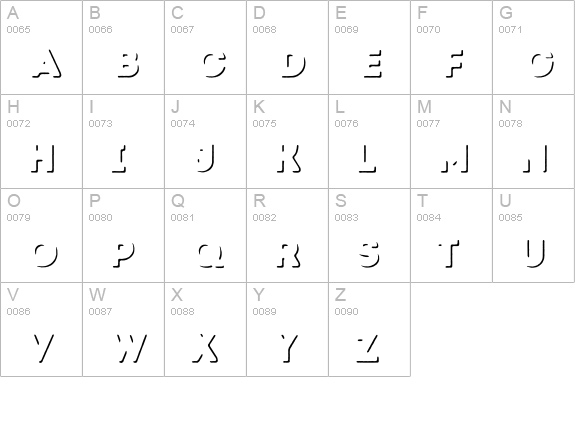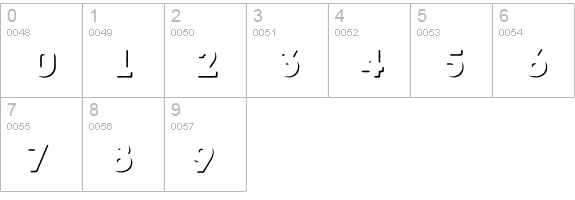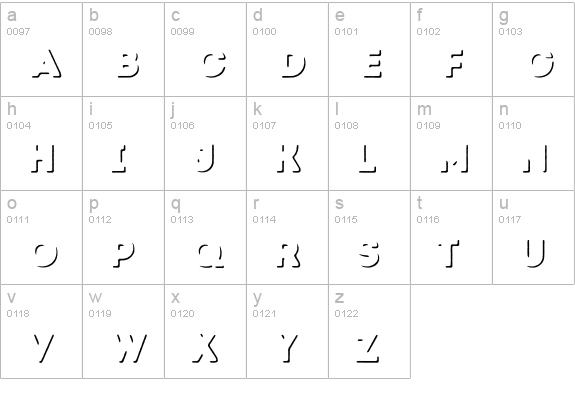
Intro Rust Shade Font Details
Intro Rust Shade is a stunning and unique display font that exudes a vintage and rustic charm. Its intricate shading and distressed appearance give it a weathered and aged look that adds character and depth to any design project. This font is perfect for creating eye-catching headlines, posters, logos, and more. What makes Intro Rust Shade even more appealing is that it is available for free download on FontsMarket.com. This means that you can easily access this beautiful font and incorporate it into your creative projects without any cost. Don't miss out on this fantastic opportunity to enhance your designs with the distinctive style of Intro Rust Shade. Download it today and let your creativity shine!